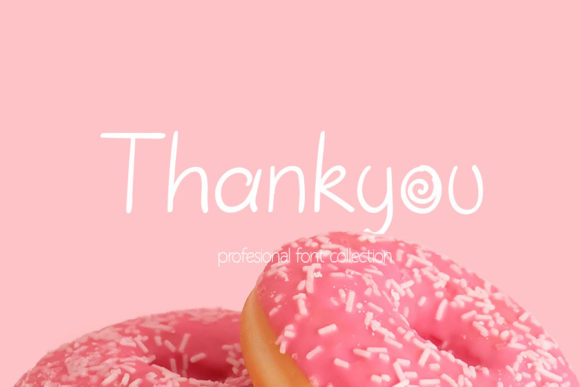
Introduction to My Lollipop Font
Have you ever been working on a creative project, pouring your heart and soul into every detail, only to feel like something is missing? That’s exactly what happened to me when I was designing a new logo for a client’s children’s bakery. I wanted something that would capture the whimsy and sweetness of their treats, but nothing seemed quite right until I stumbled upon My Lollipop Font. This adorable handwritten font was like a breath of fresh air, adding a touch of magic to my design.
As a designer, you know how valuable a high-quality, versatile font can be. My Lollipop Font is just that – a free download that can be used in a wide range of creative projects, from wedding invitations to children’s party decorations. Its transparent background makes it easy to layer and customize, and its natural, unique style is sure to make your designs stand out.
Key Features of My Lollipop Font
- High-quality, vector-based font with transparent background, ideal for creative projects and designs.
- Includes a comprehensive set of glyphs, with over 100 unique characters and symbols, perfect for designers and artists.
- Designed with a playful and whimsical aesthetic, making it perfect for children’s books, greeting cards, and other creative projects.
- Supports a range of languages, including English, Spanish, French, and many more, making it a versatile design resource.
Honest Review: My Lollipop Font
As a designer, I’m always on the lookout for high-quality design resources that can elevate my creative projects. Recently, I had the chance to try out the My Lollipop Font, and I must say it’s a solid addition to my design arsenal.
Here are some things that work well with this font:
- ✨ Beautiful and playful design: My Lollipop Font is perfect for creating a whimsical feel in your designs.
- ✨ High-quality glyphs: The font includes a wide range of glyphs, including international characters and symbols.
- ✨ Transparent background: This allows you to easily place the font on any background without worrying about a distracting background.
- ⚠️ Limited font weights: My Lollipop Font only comes in a few font weights, which may limit its versatility in certain designs.
Overall, I’m impressed with My Lollipop Font’s potential to add a touch of sweetness to your designs. While it may not be perfect, it’s a great free download that’s definitely worth exploring for your next creative project.
Tips for Getting the Most Out of My Lollipop Font
Use My Lollipop Font in combination with a transparent background to create a bold and eye-catching design. Experiment with different font sizes and colors to add depth and interest to your design. You can also use My Lollipop Font in conjunction with other design elements, such as shapes and images, to create a unique and creative project.
My Lollipop Font is perfect for designing children’s products, party invitations, and other creative projects that require a playful and colorful touch. You can also use My Lollipop Font in conjunction with other design elements to create a unique and eye-catching logo or branding identity.